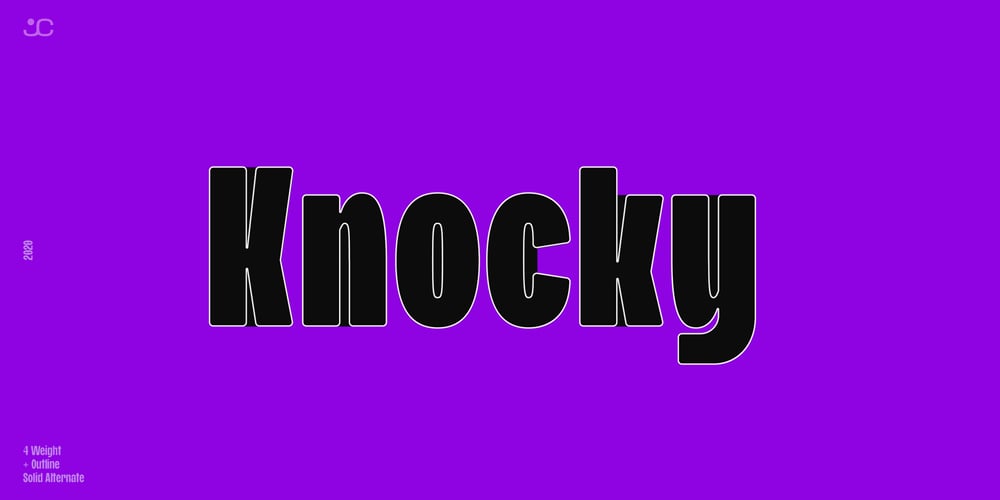
Knocky Font Family was designed by Anwar Patihan and published by Jehoo Creative. Knocky contains 8 styles and family package options. Knocky is a display typeface that is complete and versatile with a bold round condensed look with unique flexibility. We’ve added solid alternatives to letters, numbers, and some symbols, plus an outline style that will make the graphic look unique and stand out. With 8 styles and more than 530 glyphs in each. knocky has multi-language support, it will be perfect for many projects from editorial design to branding, advertising, publicity and digital.